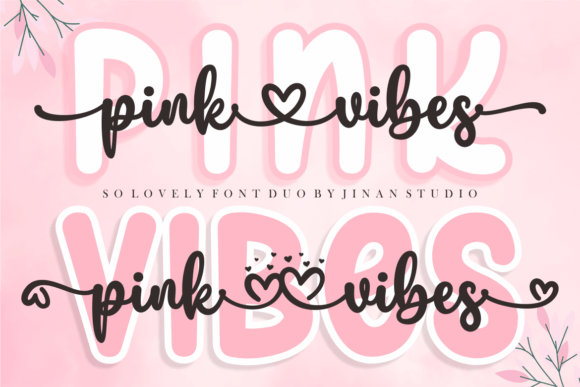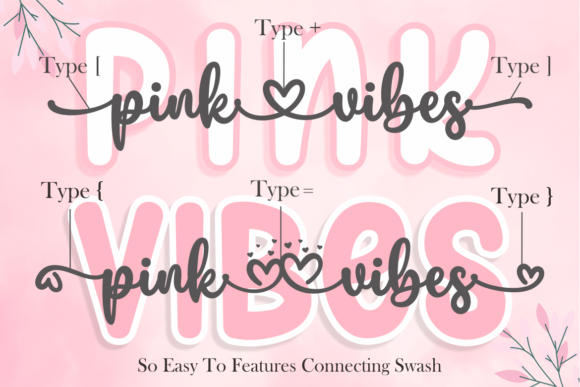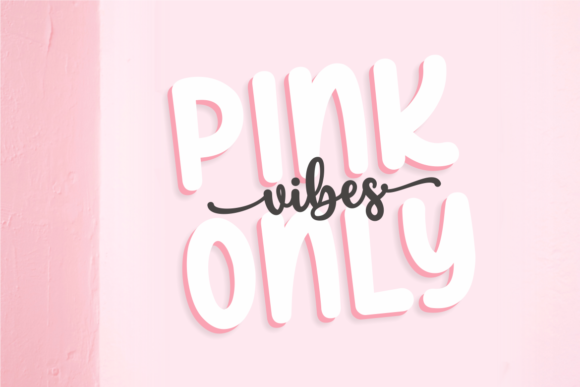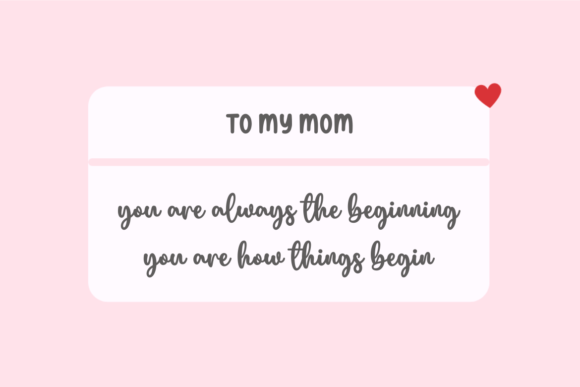
Pink Vibes Duo Font
About the Pink Vibes Duo Font
Meet Pink Vibes Duo Font, a stunning font that brings a touch of elegance and professionalism to any design. Pink Vibes Duo is a stylish and delicate duo font (script and sans serif) suitable for a wide spectrum of applications. From greeting cards to headlines, this font will guarantee a romantic touch to each of your creations! Pink Vibes Duo is PUA encoded which means you can access all of the glyphs and swashes with ease.
Pink Vibes Duo’s delicate script and sans-serif pairing excel in projects requiring a touch of romanticism and elegance. Ideal applications include wedding stationery, branding for beauty or fashion businesses, and short-form content like social media posts and headlines. However, its script component is less suitable for body text or lengthy paragraphs due to reduced readability.
The sans-serif element offers better legibility for short blocks of text within the overall design. Pairing it with a clean, geometric sans-serif like Montserrat or a warmer, neutral serif like Lato would create visual harmony and balance the script’s delicate flourishes. Avoid pairing it with overly ornate or bold fonts which could clash with its inherent softness.
Pink Vibes Duo possesses a playful yet sophisticated personality, best suited for brands projecting a feminine, romantic, or charming image. Its versatility allows for adaptation across various media, but maintaining a balanced design through careful font pairing and considered use of its script and sans-serif elements is crucial for optimal impact.